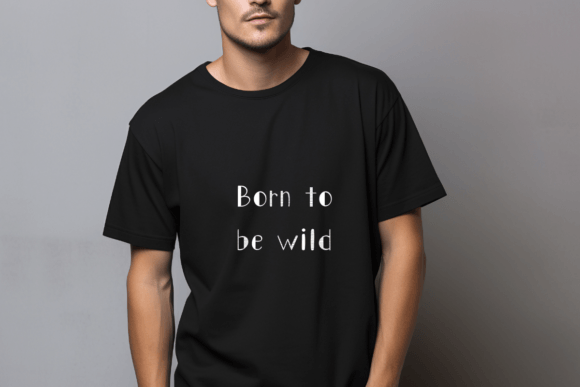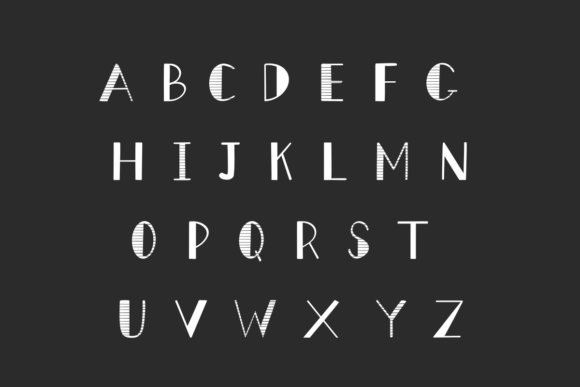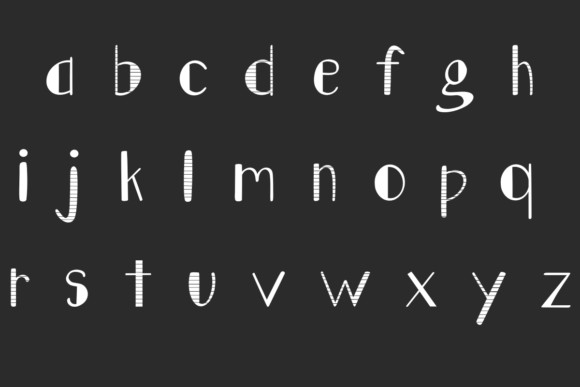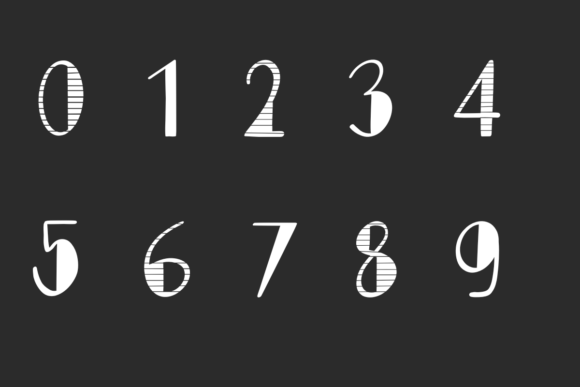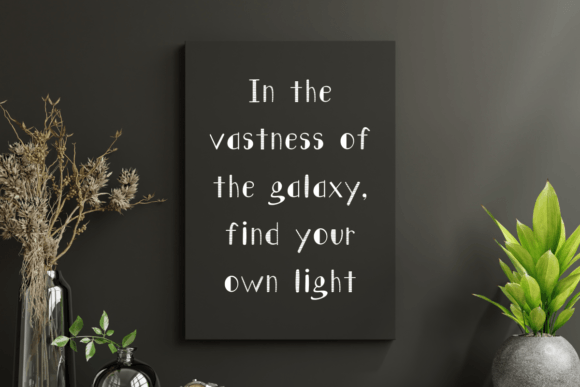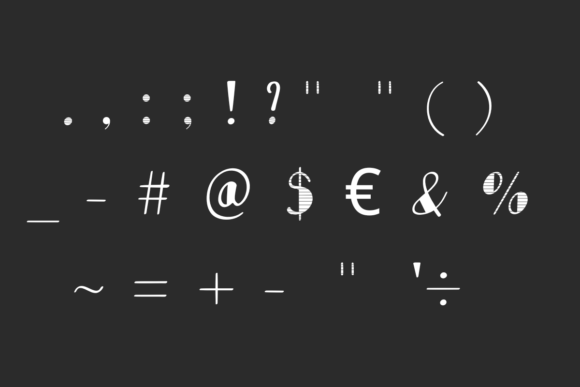
The Ultimate Guide to Cooper Font: A Cool Handwritten Sans Serif for Creative Projects
I’ll never forget the time I was working on a last-minute Easter project, and I just couldn’t find the perfect font to match the playful vibe I was going for. That’s when I stumbled upon Cooper Font, a cool handwritten sans serif font that instantly elevated my design. If you’re a designer, crafter, or creative hobbyist looking for a versatile font to add to your collection, you’re in the right place!
An Honest Review of Cooper Font
What I Love About Cooper Font
- ✨ **Playful yet elegant**: Cooper Font strikes the perfect balance between playfulness and sophistication, making it suitable for a wide range of projects.
- ✅ **Highly versatile**: From Easter and back to school designs to weddings and party decorations, Cooper Font can adapt to any theme or style.
- 💡 **Easy to read**: The font’s clear and clean design ensures that your text remains legible, even at smaller sizes.
- 🎨 **Great for creative freedom**: With its extensive range of OpenType features, glyphs, and stylistic alternates, Cooper Font offers endless possibilities for customization.
While Cooper Font is an excellent choice for many projects, there are a few minor quirks to be aware of:
- 🤔 **Limited formal settings**: Due to its playful nature, Cooper Font might not be the best fit for formal or corporate designs.
- ⚠️ **Glyph compatibility**: Some glyphs or special characters might not work seamlessly across all platforms or software.
The Backstory of Cooper Font
Cooper Font was designed with the intention of creating a friendly, approachable typeface that could bring joy and playfulness to various creative projects. Inspired by the art of handwriting and the simplicity of sans serif fonts, Cooper Font aims to bridge the gap between elegance and whimsy.
Q: What type of projects is Cooper Font best suited for?
A: Cooper Font is perfect for Easter and back to school designs, weddings, party decorations, invitations, posters, blogs, clothing, child-related designs, greeting cards, social media, logos, and much more.
Q: Does Cooper Font support OpenType features?
A: Yes, Cooper Font comes with a range of OpenType features, including ligatures, stylistic alternates, and glyphs, allowing for greater typographic control and customization.